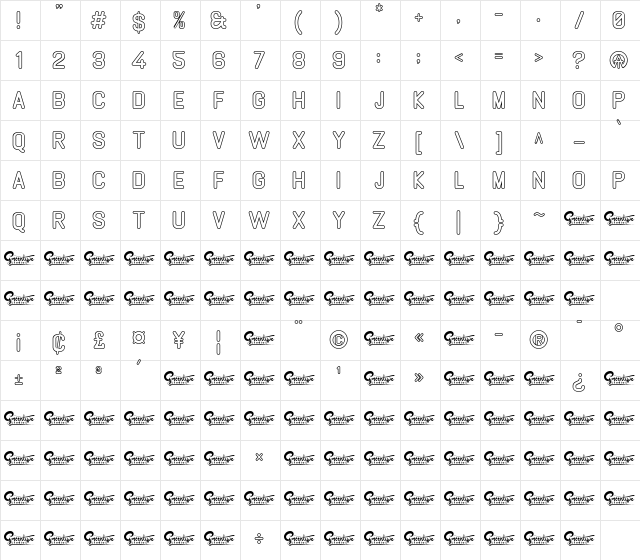
GABOED Outline
Design Context for GABOED Typeface
GABOED brings ornamental detail and strong personality to headlines and identities, where visual impact matters more than quiet functionality.
Font Pairing: Pair with a clean neutral sans-serif for body copy to let GABOED's character lead without overwhelming the composition.
Pro Tip: Use GABOED exclusively at display sizes — it was designed to be seen, not read at length. Let a neutral companion handle body copy.